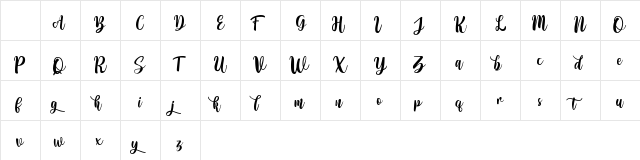
Hello Anissta flows with the natural rhythm of handwritten lettering, making it ideal for designs that call for warmth and personal expression.
Font Pairing: Combine Hello Anissta with a simple geometric sans for maximum contrast - the tension between flowing curves and clean structure is a classic typographic pairing.
Pro Tip: Use Hello Anissta for short runs of text - names, titles, or taglines. Extended body copy in script faces tires the eye quickly.